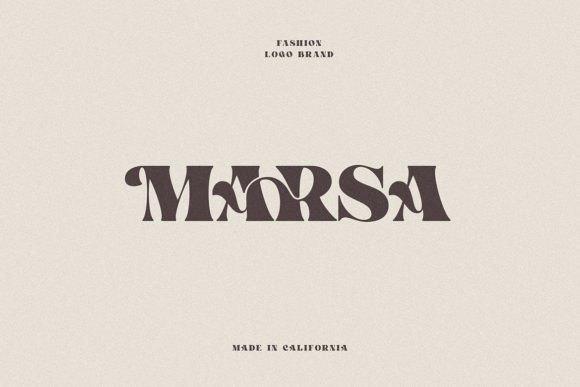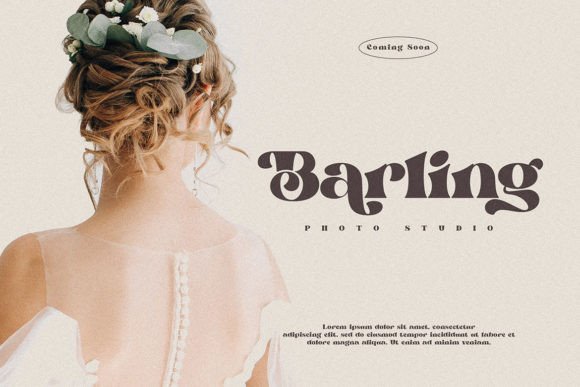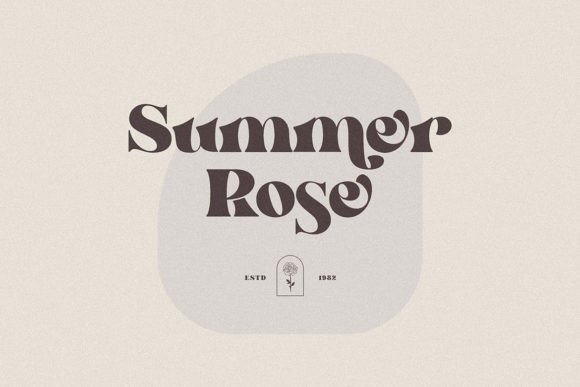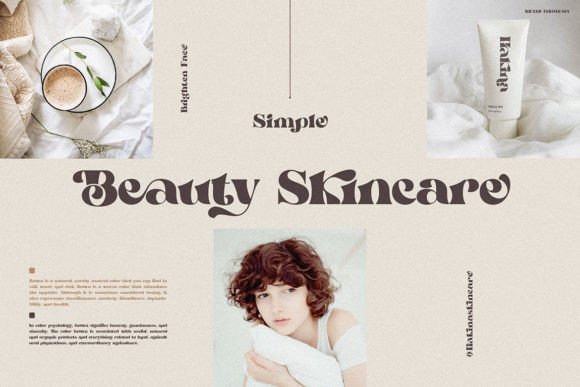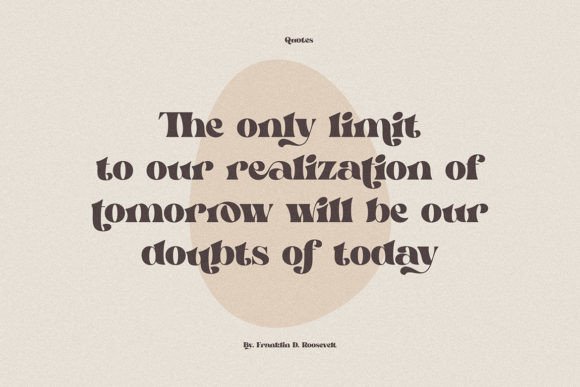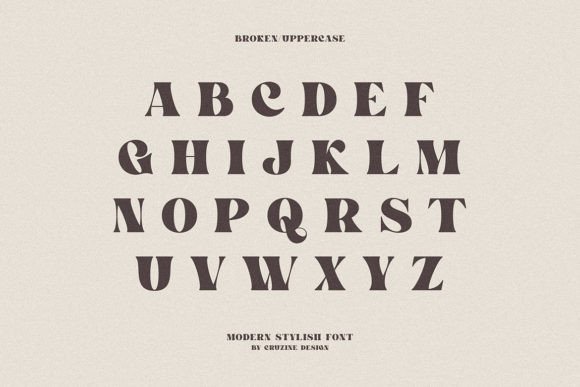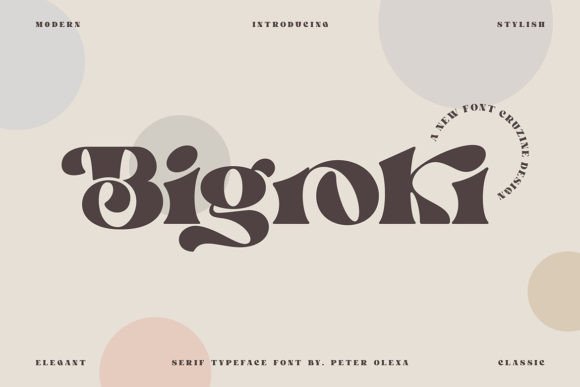
Introducing Bigroki Font: A Timeless and Modern Typeface
In the world of typography, a font can make or break a design. A well-crafted font can elevate a project from ordinary to extraordinary, while a poorly chosen one can detract from the overall aesthetic. For designers and crafters seeking a typeface that embodies both sophistication and simplicity, look no further than Bigroki Font. This stunning font is a masterful blend of classic and modern elements, making it perfect for editorial design, branding, and any project that demands a touch of elegance and refinement.
The Design of Bigroki Font
Bigroki Font boasts clean and sharp serifs, which provide a sense of sophistication and poise. The font’s contemporary twist injects a modern feel, making it versatile and adaptable to a wide range of design applications. Whether you’re working on a luxury brand’s logo, a fashion magazine, or a high-end product packaging, Bigroki Font is sure to impress. Its elegant lines and refined features create a sense of luxury, making it an excellent choice for designers who want to convey a sense of high-end quality.
One of the standout features of Bigroki Font is its PUA (Private Use Area) encoding. This means that you can access all the delightful glyphs and swashes effortlessly, without having to navigate complex character maps or coding. With PUA encoding, you can easily insert alternate characters, ligatures, and swashes into your design, giving you unparalleled creative control. This feature is particularly useful for designers who want to add a personal touch to their work or create unique and eye-catching typography.
Use Cases for Bigroki Font
Bigroki Font’s versatility makes it suitable for a wide range of design applications, including:
- Editorial Design: Bigroki Font is perfect for magazines, newspapers, and books that require a sophisticated and elegant typeface.
- Branding: The font’s modern and refined features make it an excellent choice for luxury brands, fashion labels, and high-end products.
- Packaging Design: Bigroki Font’s clean lines and elegant features make it suitable for product packaging that requires a touch of sophistication.
- Advertising: The font’s versatility and legibility make it perfect for advertising campaigns that require a clear and impactful message.
Benefits of Using Bigroki Font
By incorporating Bigroki Font into your design workflow, you can enjoy a range of benefits, including:
- Enhanced Visual Appeal: Bigroki Font’s elegant lines and refined features add a touch of sophistication to any design.
- Increased Versatility: The font’s PUA encoding and range of glyphs and swashes give you unparalleled creative control.
- Improved Legibility: Bigroki Font’s clean lines and sharp serifs ensure that your message is conveyed clearly and effectively.
- Time-Saving: With PUA encoding, you can access all the font’s features effortlessly, saving you time and effort.
In conclusion, Bigroki Font is a timeless and modern typeface that offers a perfect balance of sophistication and simplicity. Its clean and sharp serifs, combined with a contemporary twist, make it an excellent choice for designers and crafters seeking a versatile and elegant font. With its PUA encoding and range of glyphs and swashes, Bigroki Font is sure to become a staple in your design workflow. Whether you’re working on editorial design, branding, or packaging, Bigroki Font is the perfect choice for any project that demands a touch of elegance and refinement.